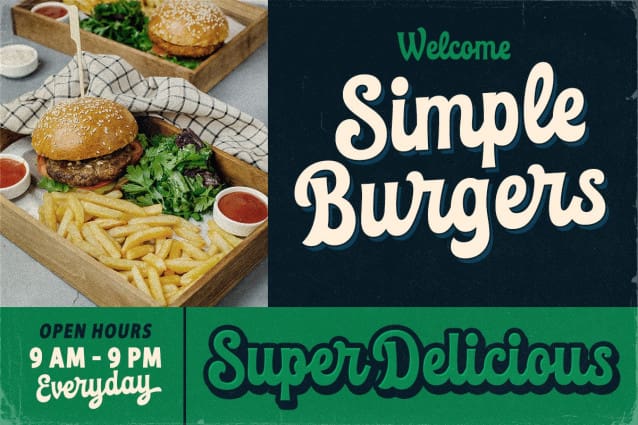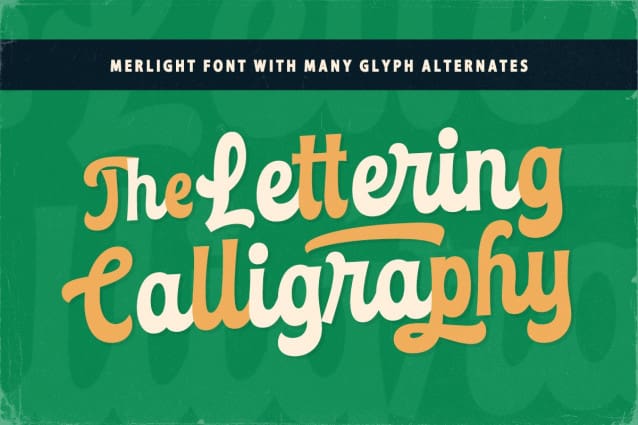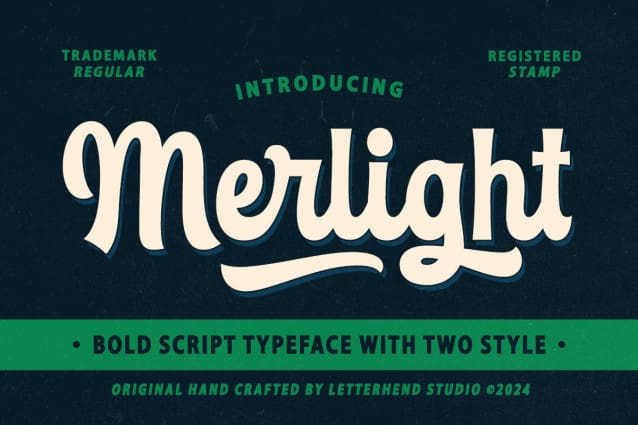
Merlight Script Font
Merlight Script Font a standout bold script with a touch of vintage looks. This type of font perfectly made to be applied especially in logo, headline, signage and the other various formal forms such as invitations, labels, logos, magazines, books, greeting / wedding cards, packaging, fashion, make up, stationery, novels, labels or any type of advertising purpose.